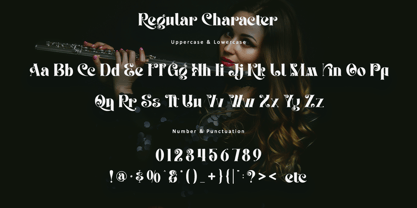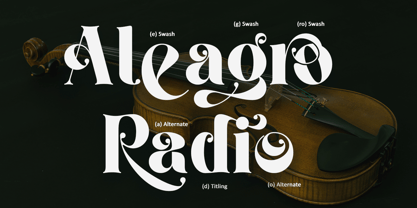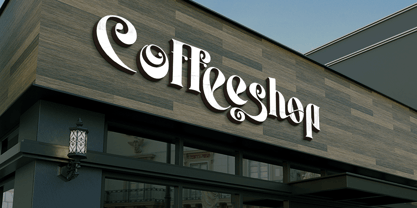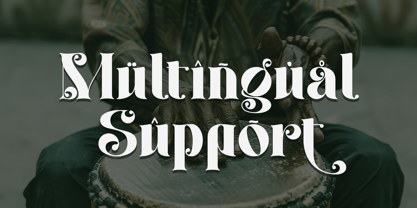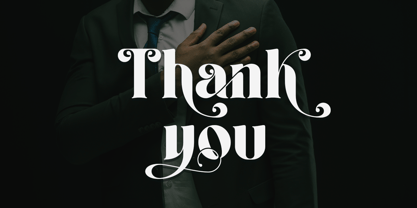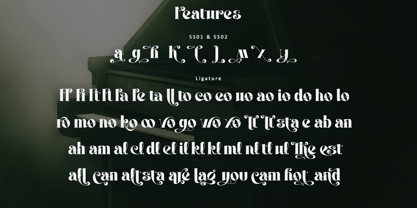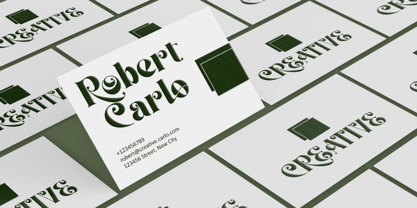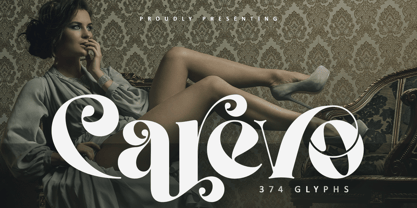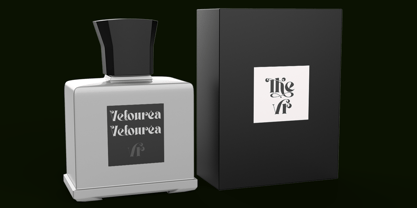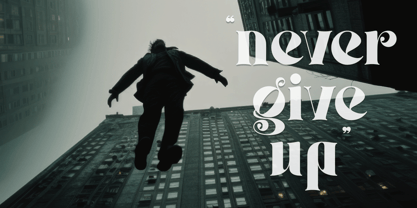
Carevo
by Letterara
The Carevo Font Family was designed by Thomas Aradea and published by Letterara. Carevo contains 2 styles and family package options. More about this family
Experience the elegance of Carevo, a stunning display serif that masterfully combines boldness with playful sophistication. Featuring sweeping swashes, graceful curves, and intricate detailing, each character stands out as a true statement piece. Ideal for high-end branding, upscale boutique logos, exquisite packaging, or refined editorial layouts, Carevo elevates your words into masterpieces. With a wide array of alternates, swashes, ligatures, and robust multilingual support, this font unlocks limitless creative potential. Embrace Carevo as your hallmark of style, infusing timeless charm and unforgettable character into every design project.
Designers: Thomas Aradea
Foundry: Letterara